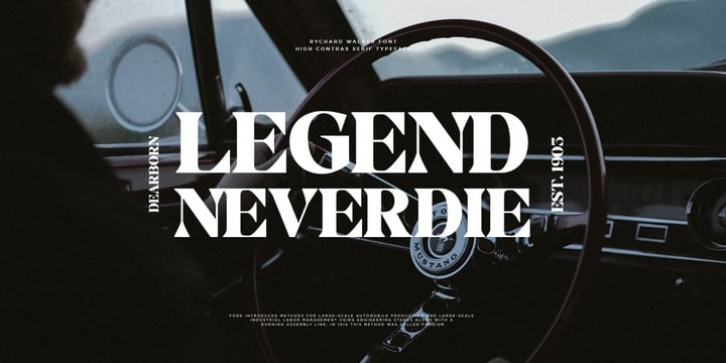
Rychard Walker Font Family was published by pentagonistudio. Rychard Walker contains 1 styles and family package options.
Rychard Walker Is A Modern Serif Character Inspired By Vintage and Retro Style.